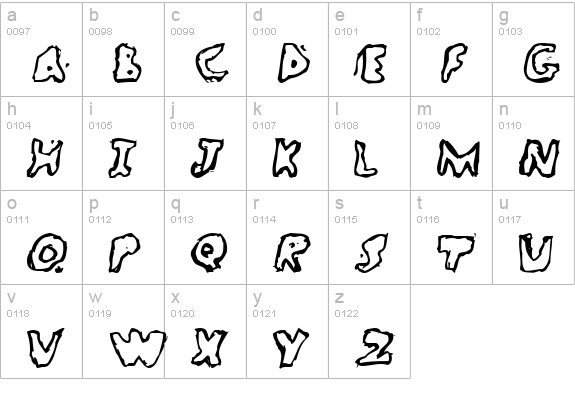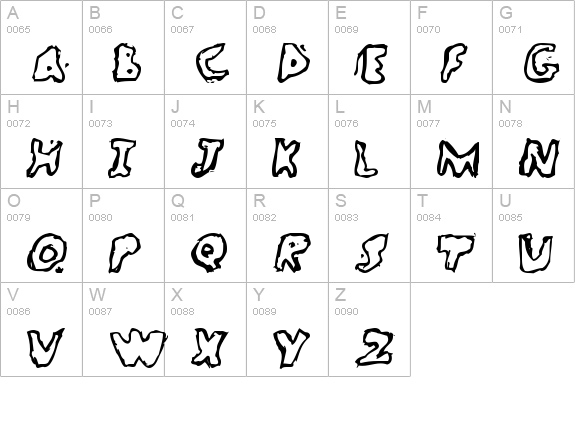
WatchBreaker Font Details
Introducing WatchBreaker, a captivating and dynamic font that breaks the boundaries of traditional typography. With its unique and modern design, this font is sure to catch the eye and make a lasting impression. WatchBreaker is the perfect choice for those seeking to add a touch of excitement and energy to their designs. Its bold and edgy letterforms exude confidence and make a statement, whether used in headlines, logos, or posters. What sets WatchBreaker apart is not only its striking appearance but also its versatility. This font can effortlessly adapt to various design styles and themes, making it suitable for a wide range of projects. From fashion and music to technology and sports, WatchBreaker adds a touch of excitement and creativity to any design. But what's even better? WatchBreaker is available for free! Yes, you read that right. This font can be freely downloaded at FontsMarket.com, one of the leading online platforms for high-quality, professionally designed fonts. So, not only can you enhance your designs with this stunning font, but you can also do it without breaking the bank. Don't miss out on the opportunity to elevate your designs and make a bold statement with WatchBreaker. Download it now for free at FontsMarket.com and unleash your creativity like never before.